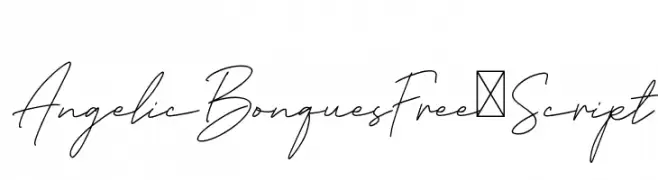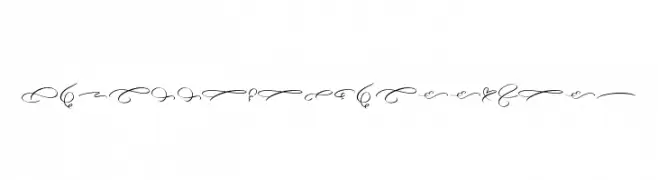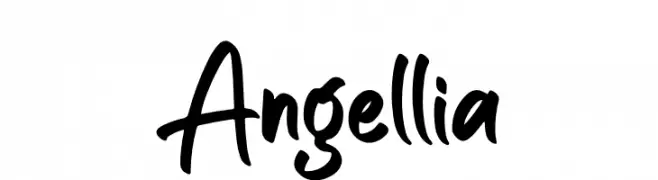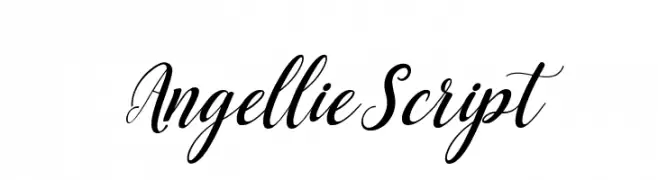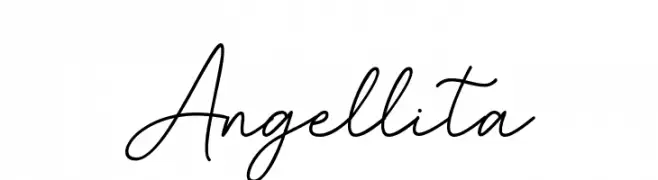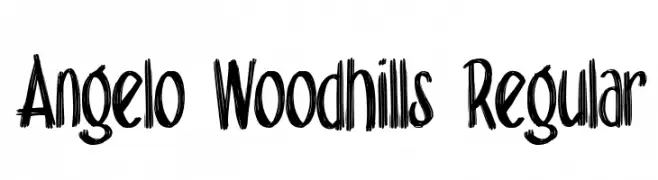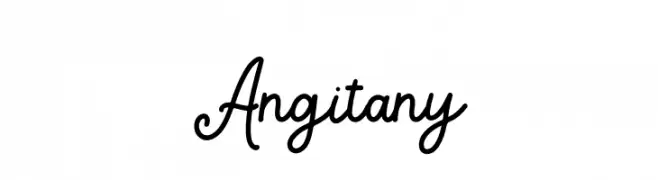
A graceful, handwritten script font with smooth, connected strokes.
An elegant and sophisticated cursive script font with flowing, graceful loops.
An elegant, decorative font with intricate swashes and flourishes.
A playful, handwritten font with bold, irregular strokes.
An elegant script font with flowing, cursive letters and high contrast.
An elegant, flowing script font with a natural handwritten style.
A hand-drawn, brushstroke font with a casual and artistic style.
A playful and elegant script font with flowing, cursive letterforms.
A bold, energetic handwritten font with dynamic curves and a playful style.
A bold, expressive handwritten font with dynamic strokes.